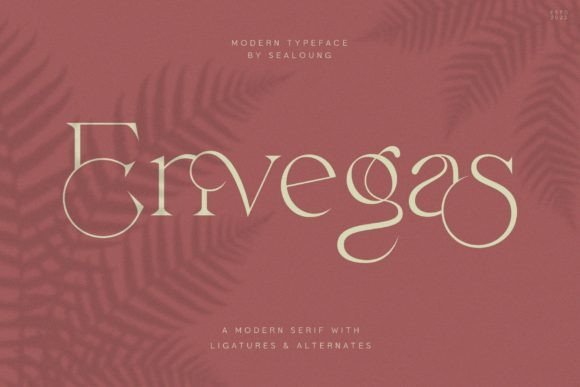
Unleash the Magic of Envegas Font
Have you ever stared at a blank canvas, eager to bring your creative vision to life, only to find yourself stuck in a sea of monotony? We’ve all been there – the blank page, the blinking cursor, the nagging feeling that something’s missing. That’s where the Envegas Font comes in, a game-changing serif ligature font designed to breathe life into your designs.
Encompassing the perfect blend of modernity and sophistication, the Envegas Font is a versatile tool for designers looking to elevate their projects. Whether you’re crafting quotes, body copy, headings, logos, or branding materials, this font is sure to make a lasting impression. Its value lies in its adaptability – it can seamlessly transition from print to digital media, ensuring your creative vision is translated flawlessly across various platforms.
- Font Size: 6,000+ glyphs, including Latin, Cyrillic, and Greek alphabets
- Resolution: Supports high-resolution displays with crisp and clear rendering
- Unique Characteristics: Distinctive, modern design with a touch of elegance and sophistication
- Font Weight: Multiple weights, including Light, Regular, Medium, Bold, and Black
- Language Support: Supports multiple languages, including English, Spanish, French, German, and more
Envegas Font Review
I recently had the chance to work with the Envegas font, and I must say it’s a unique and captivating addition to any design project. ✨ The font’s elegant, modern aesthetic is perfect for creating a sophisticated and luxurious feel. The bold and italic styles are particularly effective in drawing attention and adding emphasis.
The Envegas font is also highly legible, making it an excellent choice for body text. The font’s open design allows for easy reading, even at smaller font sizes.
While the Envegas font is impressive, there are a few limitations to consider:
- ⚠️ Limited language support: The font may not be compatible with all languages, which could be a concern for international projects.
- ⚠️ No Cyrillic support: Unfortunately, the Envegas font does not include Cyrillic characters, which may be a limitation for designers working with Russian or other Cyrillic-based languages.
- ⚠️ Not ideal for small text: While the Envegas font is legible at larger font sizes, it may not be the best choice for small text or captions.
Overall, I’m impressed with the Envegas font’s unique design and versatility. While it may have some limitations, it’s an excellent choice for projects where a sophisticated, modern feel is required. With some careful consideration of its limitations, the Envegas font can be a valuable addition to any designer’s toolkit.
Envegas Font is suitable for a wide range of applications, including:
- Logo design
- Typography
- Presentation design
Alternatives to Envegas Font
Great Vibes is a modern, elegant script font that is perfect for creating a sophisticated and luxurious look. It is ideal for use in logos, branding, and packaging design. Great Vibes is more elegant and refined compared to Envegas Font, which has a more casual and playful feel.
Carolyna Pro is a high-end script font that exudes sophistication and glamour. It is perfect for use in luxury branding, fashion, and lifestyle design. Compared to Envegas Font, Carolyna Pro has a more refined and polished look, making it ideal for high-end designs.
Alex Brush is a beautiful, handwritten script font that is perfect for creating a personal and intimate feel. It is ideal for use in wedding invitations, stationery, and other design projects that require a touch of warmth and personality. Alex Brush has a more organic and hand-drawn feel compared to Envegas Font, which has a more digital and modern look.